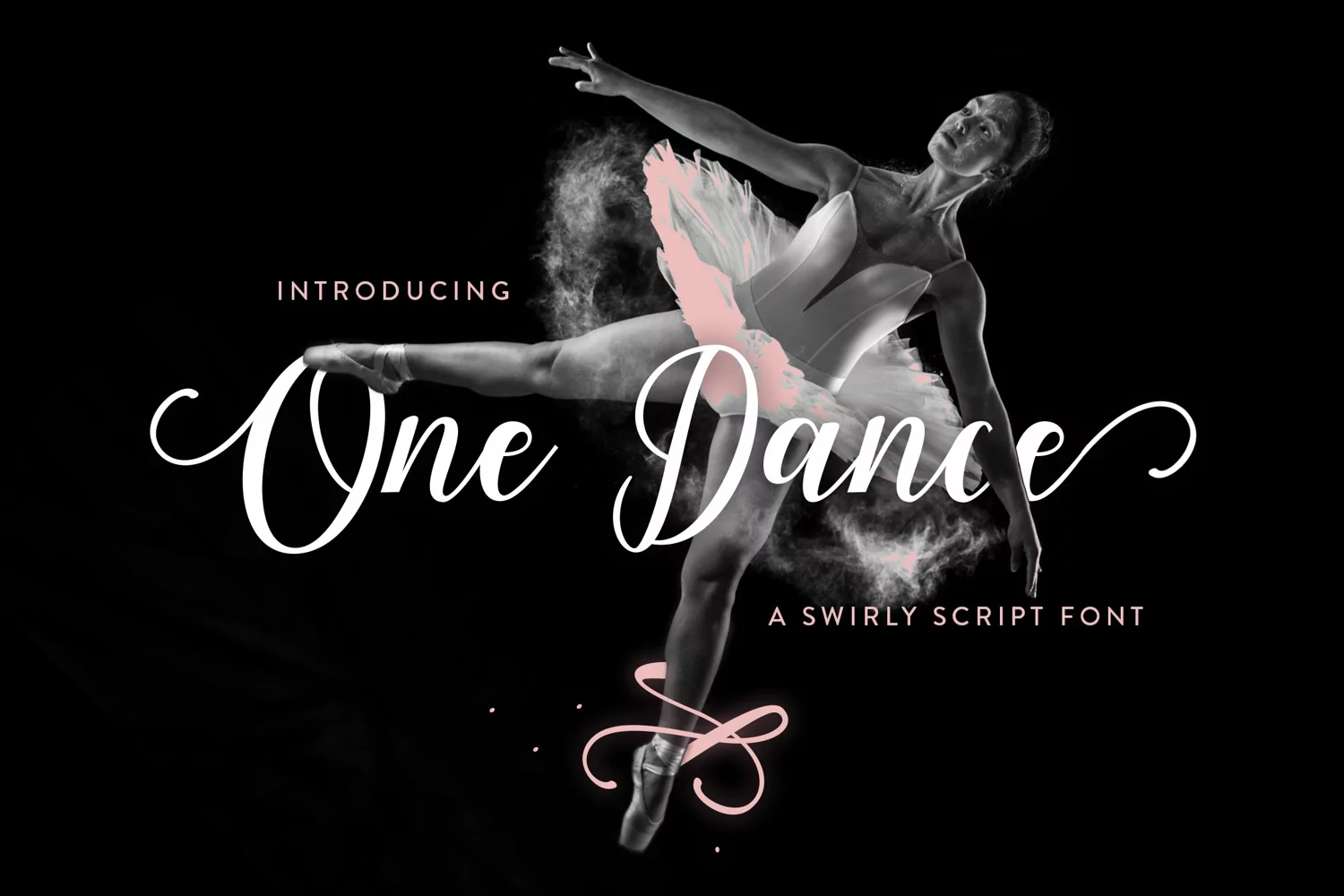
One Dance is a swirly script font which dances its way off the page! This feminine font is smooth and characteristic in its nature, with its lowercase and uppercase forming a true companionship. Feminine fonts such as One Dance are beautiful choices for using when creating wedding invitations, logos, social media posts, blogging, and so much more!